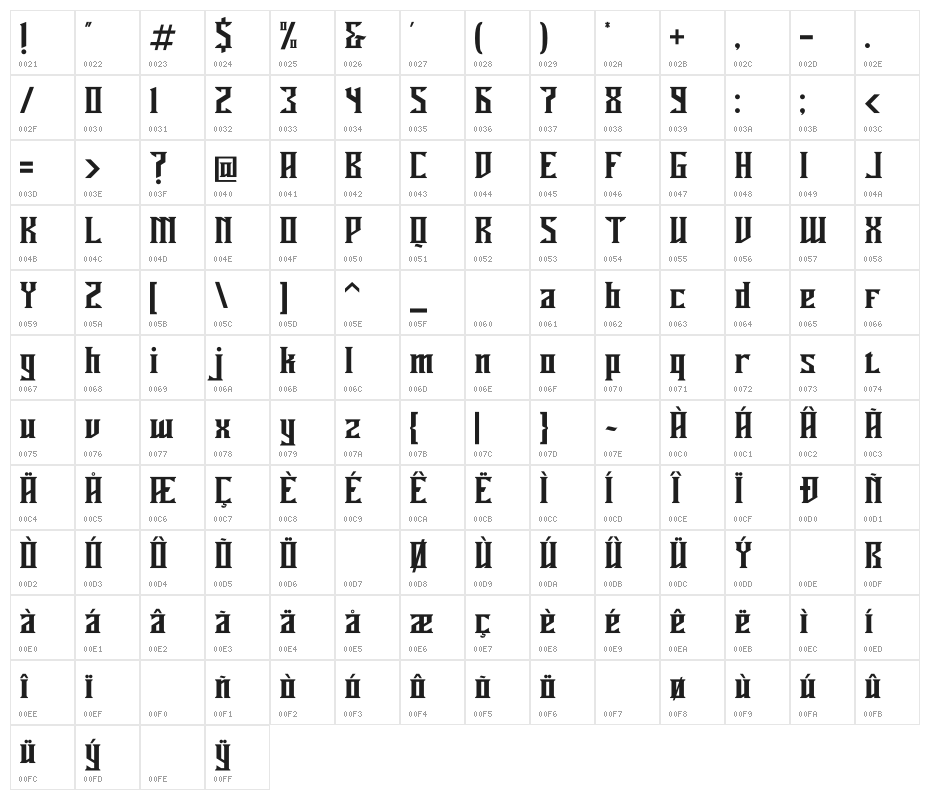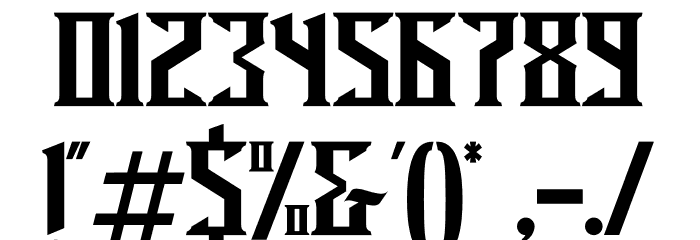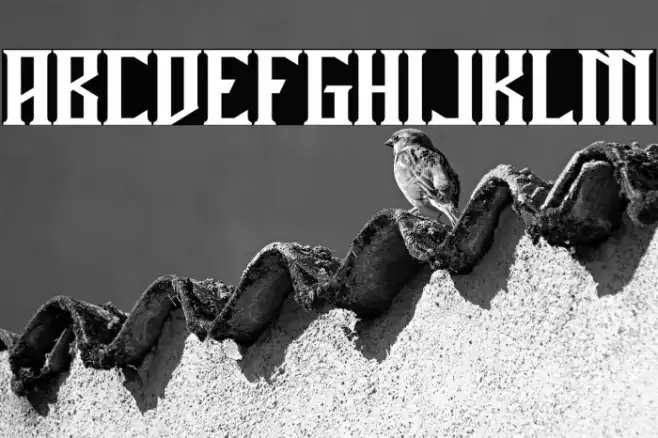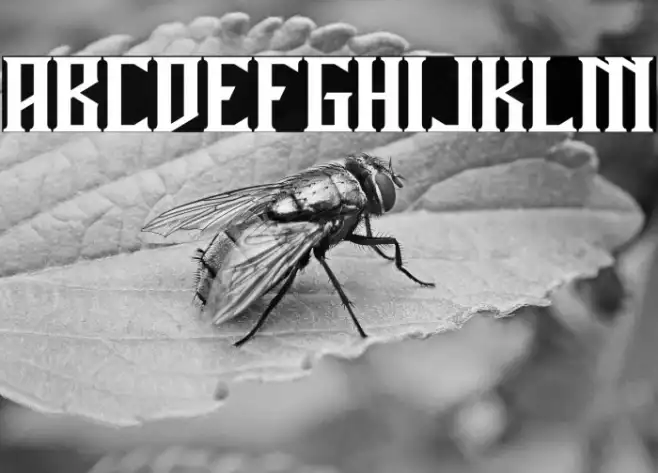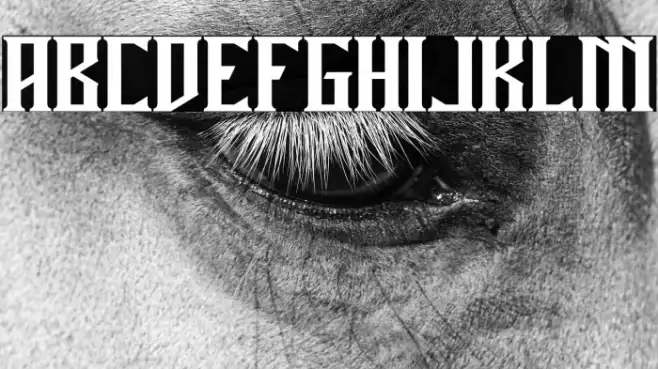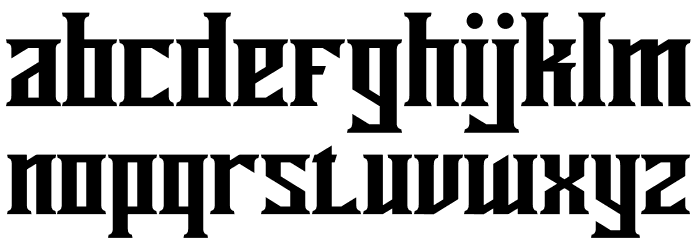
Miles Hunt Clean Font
Miles Hunt Clean Description
This font features a bold and striking design with a strong blackletter influence. The characters are sharply angular with pointed serifs and a distinct medieval aesthetic. The uppercase letters are tall and commanding, while the lowercase letters maintain a consistent style with slightly more rounded edges. Numbers and special characters follow the same bold, angular design, making them stand out prominently. This font is ideal for creating a dramatic and historical feel, reminiscent of Gothic script. Its unique style makes it suitable for projects that require a touch of antiquity and elegance.
| Use Case | Headlines, Logos, Decorative text |
| Proposed Projects | Ideal for historical themed designs, book covers, posters, and branding that requires a dramatic, Gothic touch. |